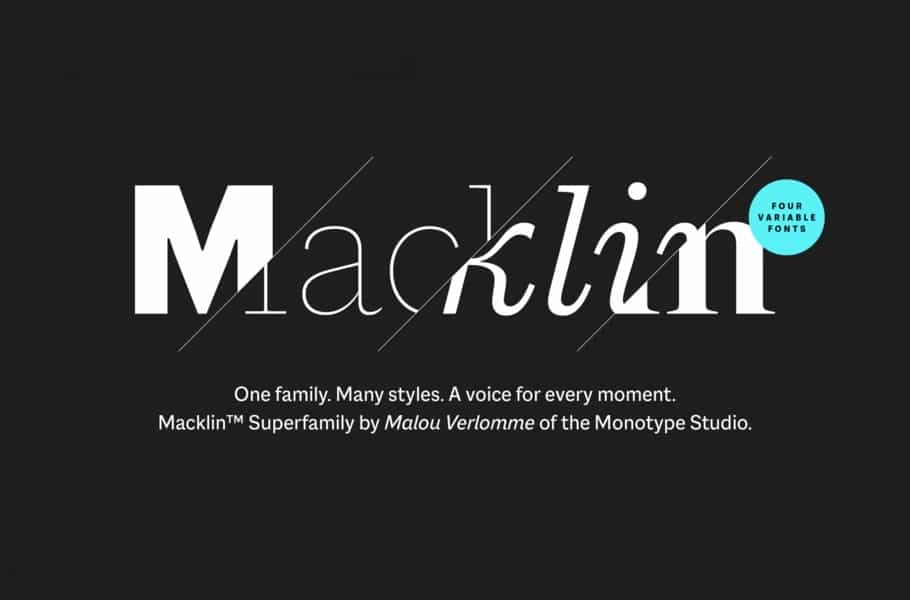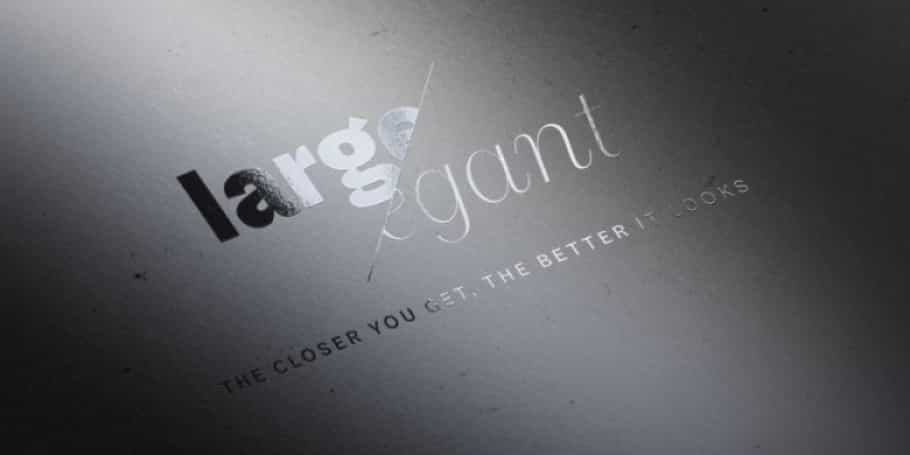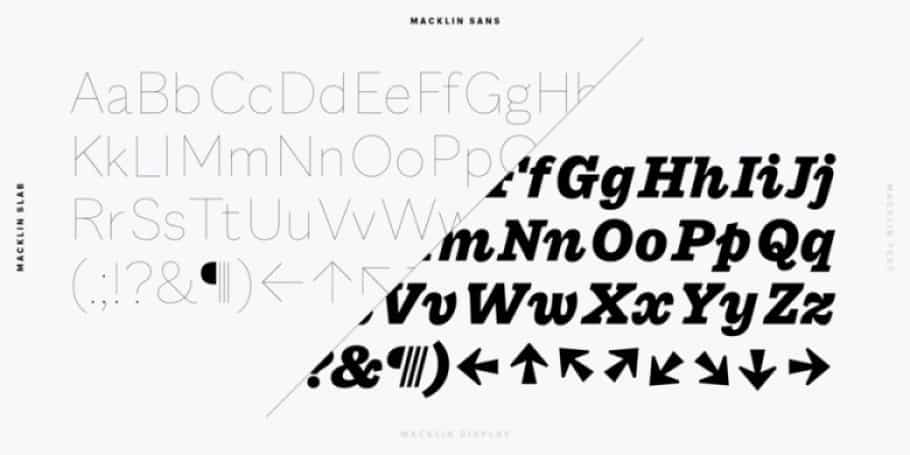
Macklin Font
Malou Verlomme of Monotype Studio designed Macklin as an elongated superfamily that blends various eye-catching styles into an appealing package. A high contrast typeface, Macklin was specifically created to help brands attract emotionally-driven customers and grow sales. Comprised of four subfamilies (Sans Text, Slab Text Display & Display as well as variations), its entire superfamily comprises 54 fonts spanning hairline to black weights for easy reading.